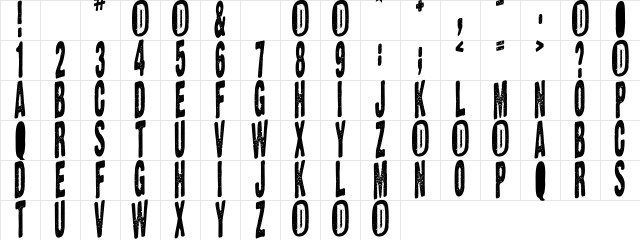
NeatNeatNeat Regular
Design Context for NeatNeatNeat
NeatNeatNeat is a composed and adaptable typeface that performs quietly and consistently across a wide range of design contexts.